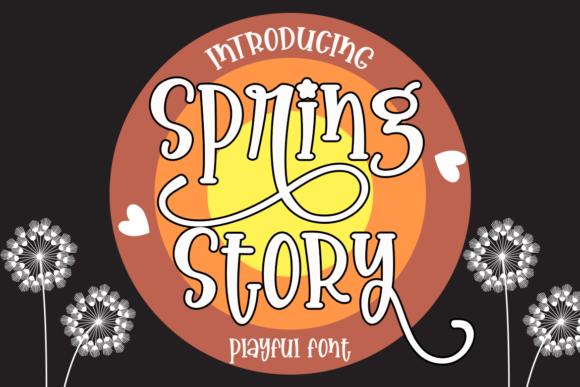
Feast your eyes on Spring Story, the display font that's bursting with charm, playfulness, and visual delight! This enchanting font, meticulously crafted by Supersemar Letter, is a celebration of childlike wonder and imagination.
Spring Story's playfully rounded characters dance across the screen, captivating hearts and igniting smiles. Each letter, imbued with personality, tells a story of its own, inviting you to immerse yourself in a world of whimsy and creativity.
Picture this: your designs transformed into captivating masterpieces, adorned with the vibrant hues of Spring Story. Imagine your words taking flight, carried by this font's magical aura, leaving an indelible mark on your audience.
With Spring Story, you hold the key to unlocking a treasure trove of creative possibilities. Its versatility knows no bounds, effortlessly adapting to any digital canvas. Whether you're crafting eye-catching logos, designing captivating posters, or creating enchanting social media posts, Spring Story is your trusted companion, guiding you toward design greatness.
But Spring Story isn't just a font; it's an experience. It's a journey into the heart of childhood, where imagination reigns supreme and laughter echoes through the air.
So, dear creative soul, embrace the magic of Spring Story and embark on a journey of self-expression. Let your imagination soar, let your creativity shine, and let your designs blossom with the beauty of this enchanting font.